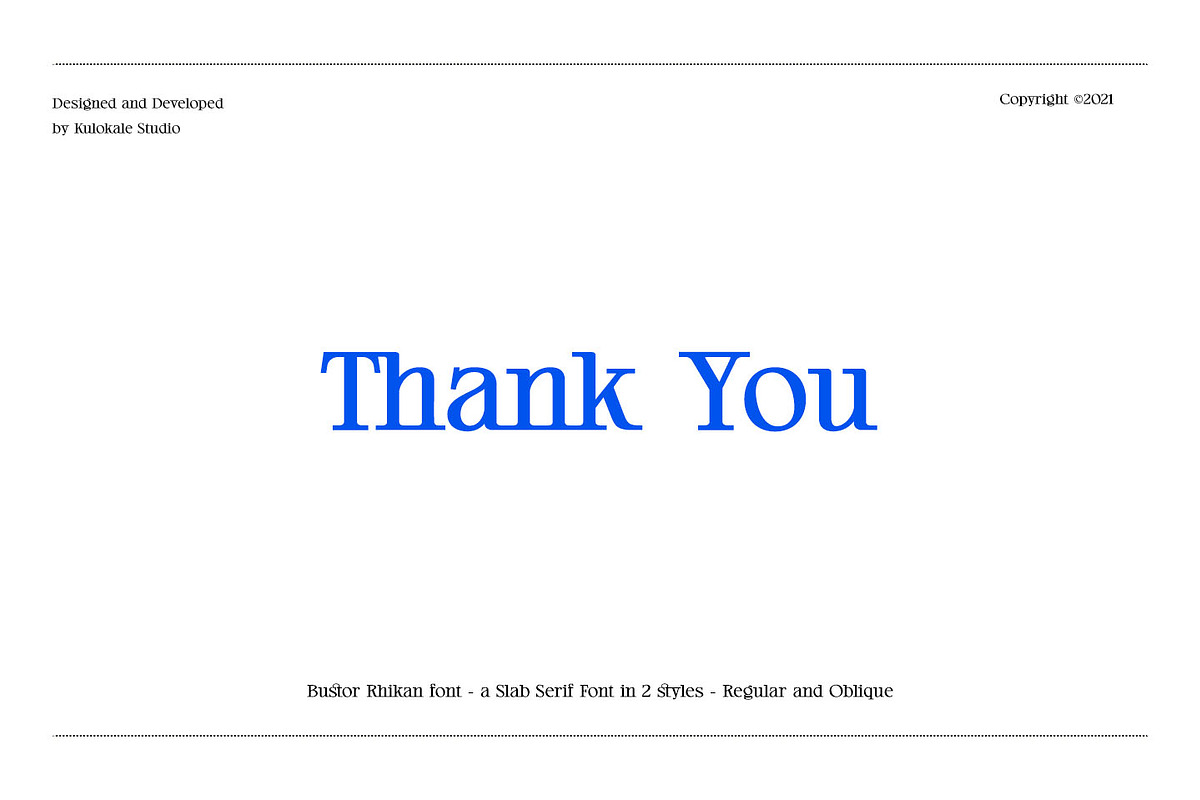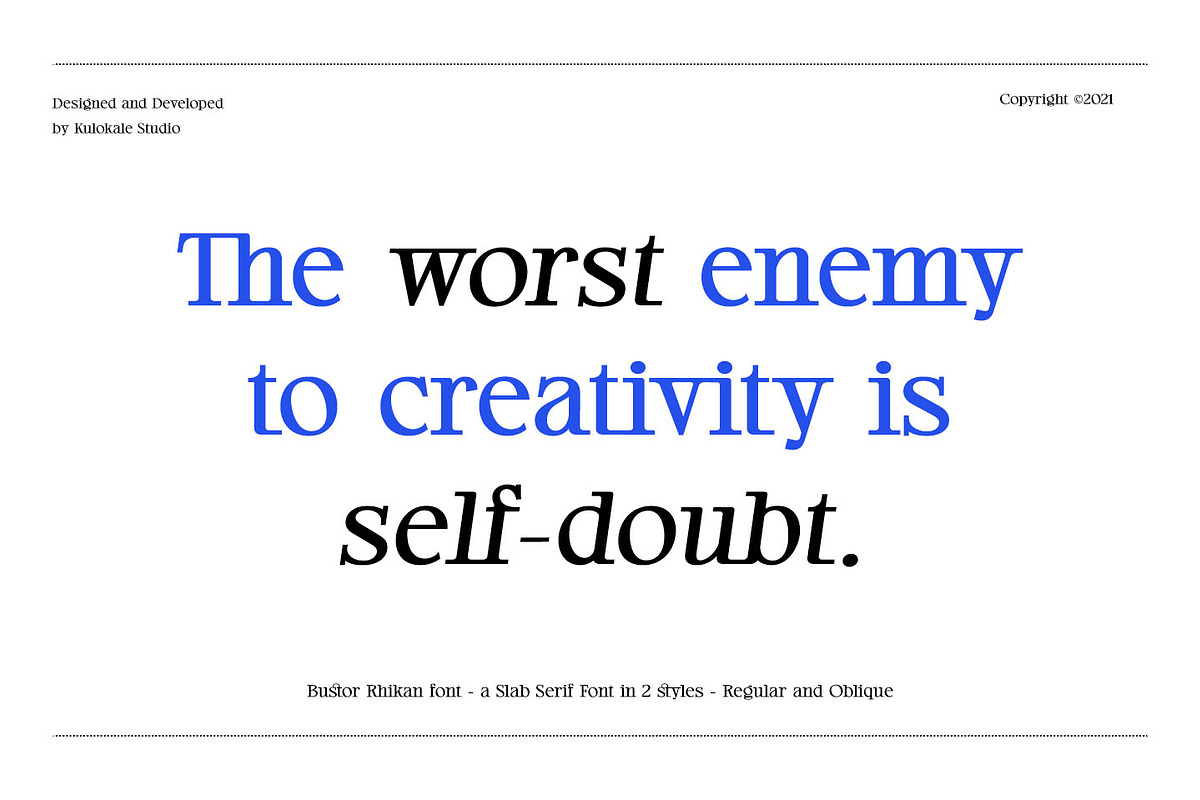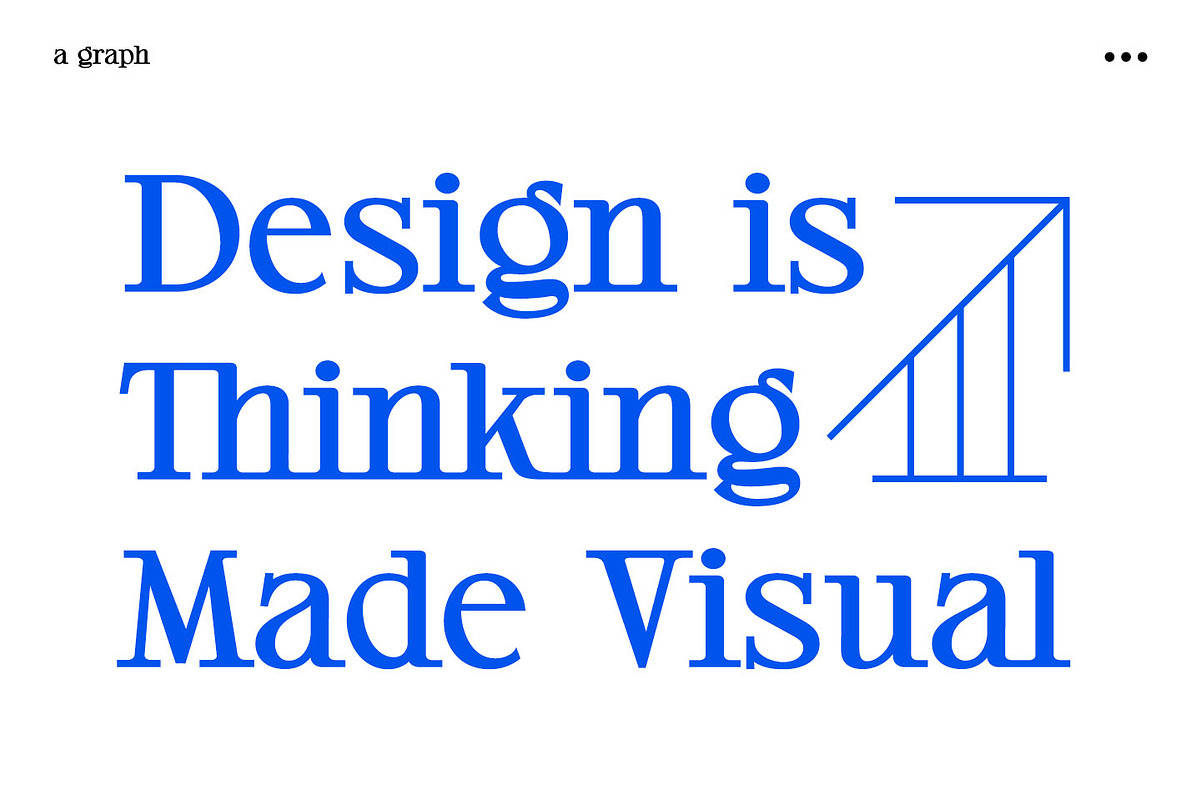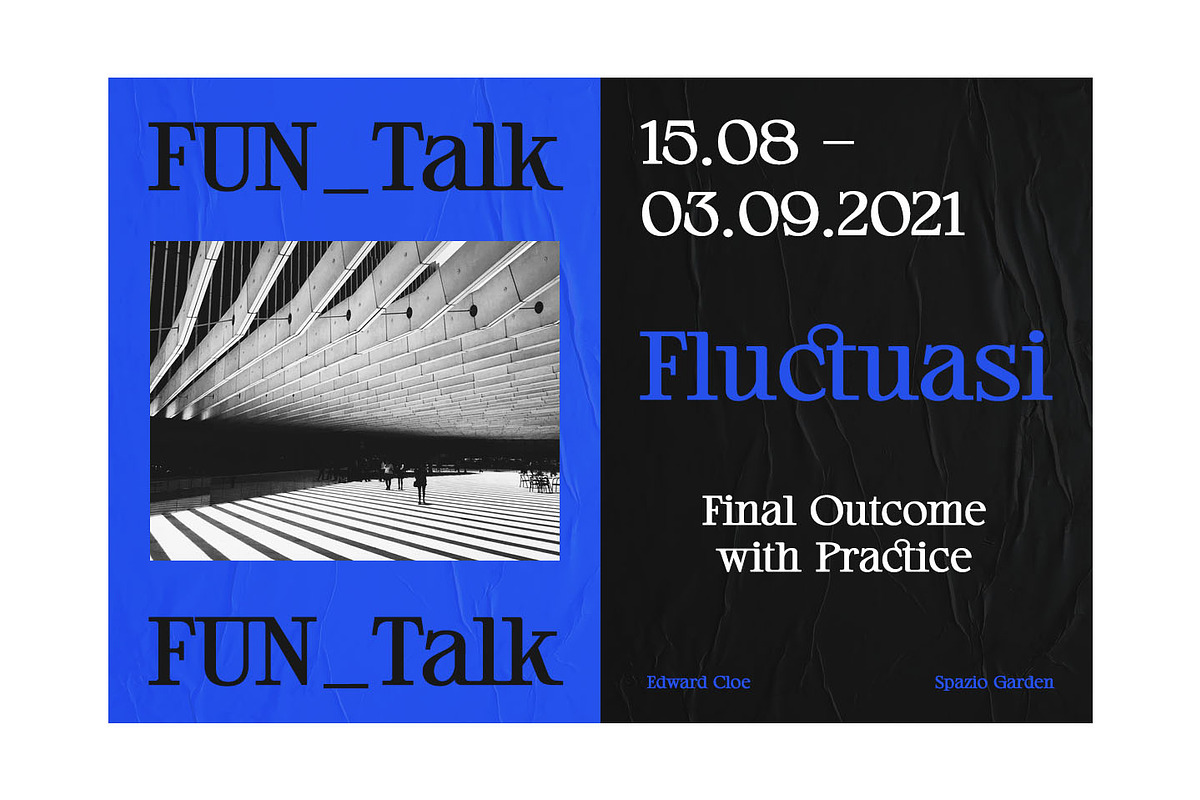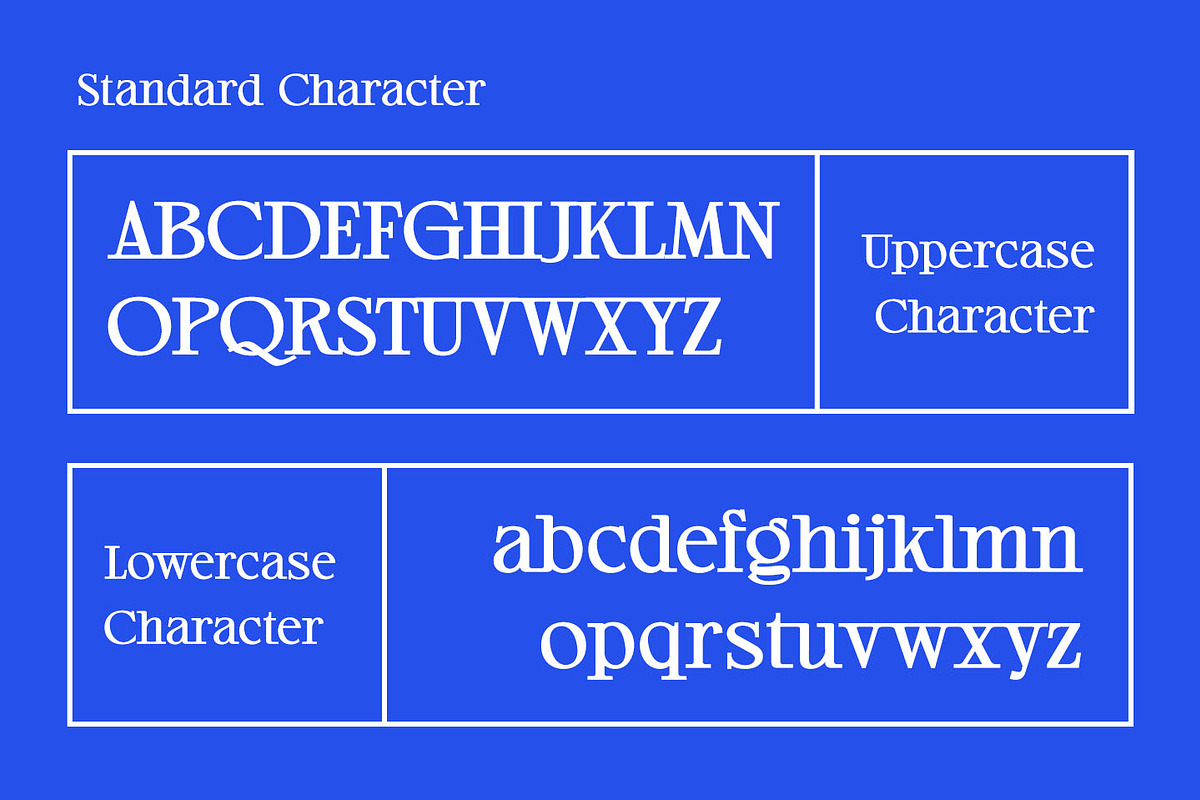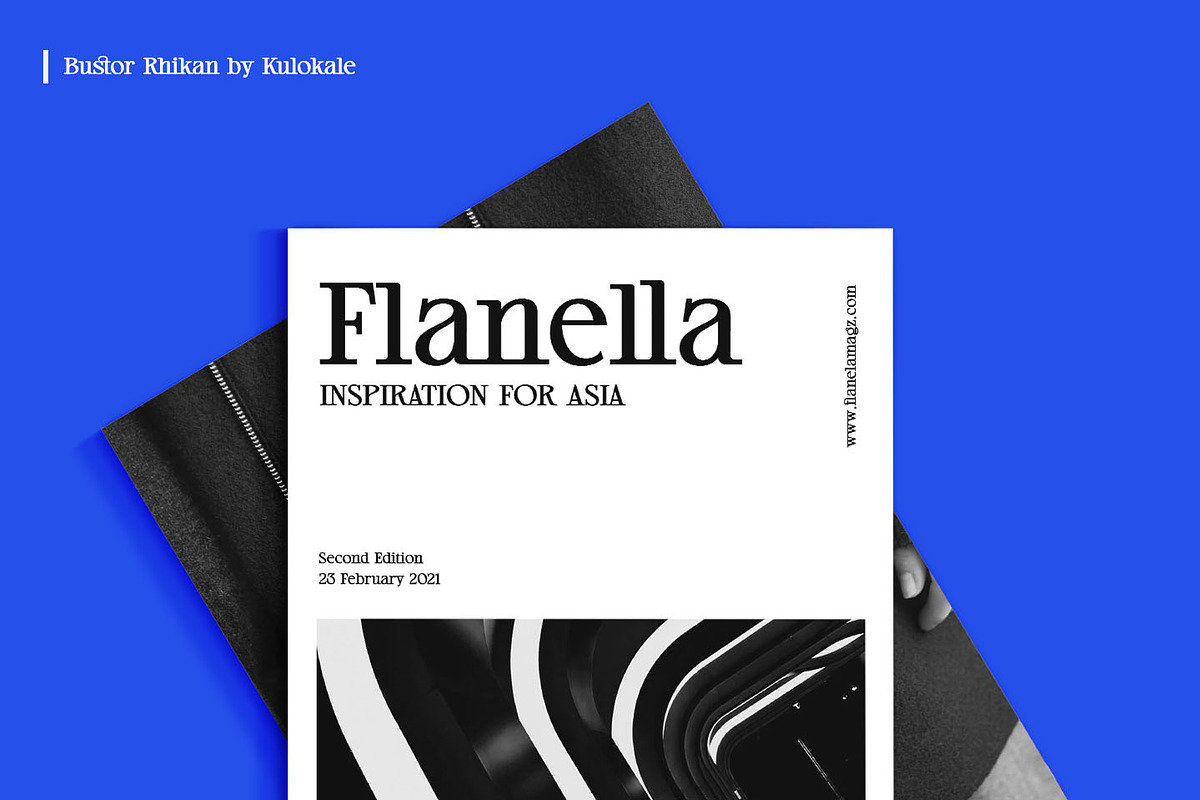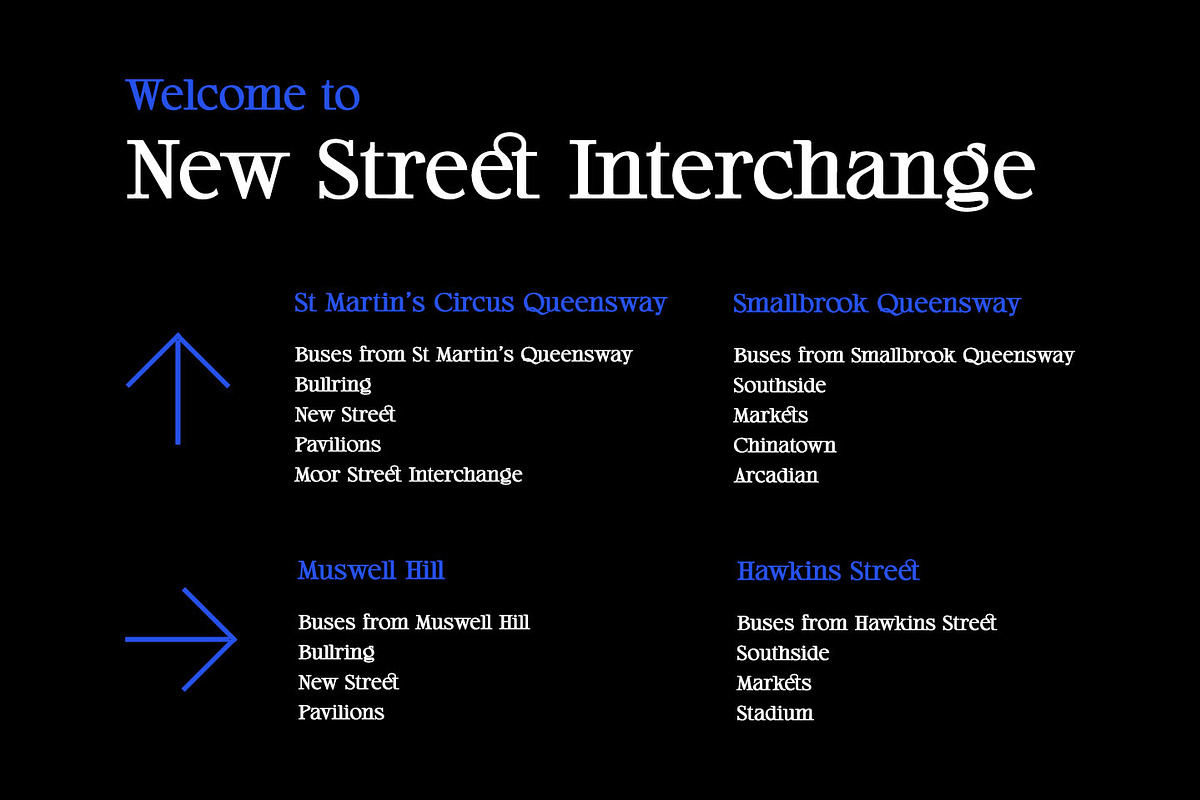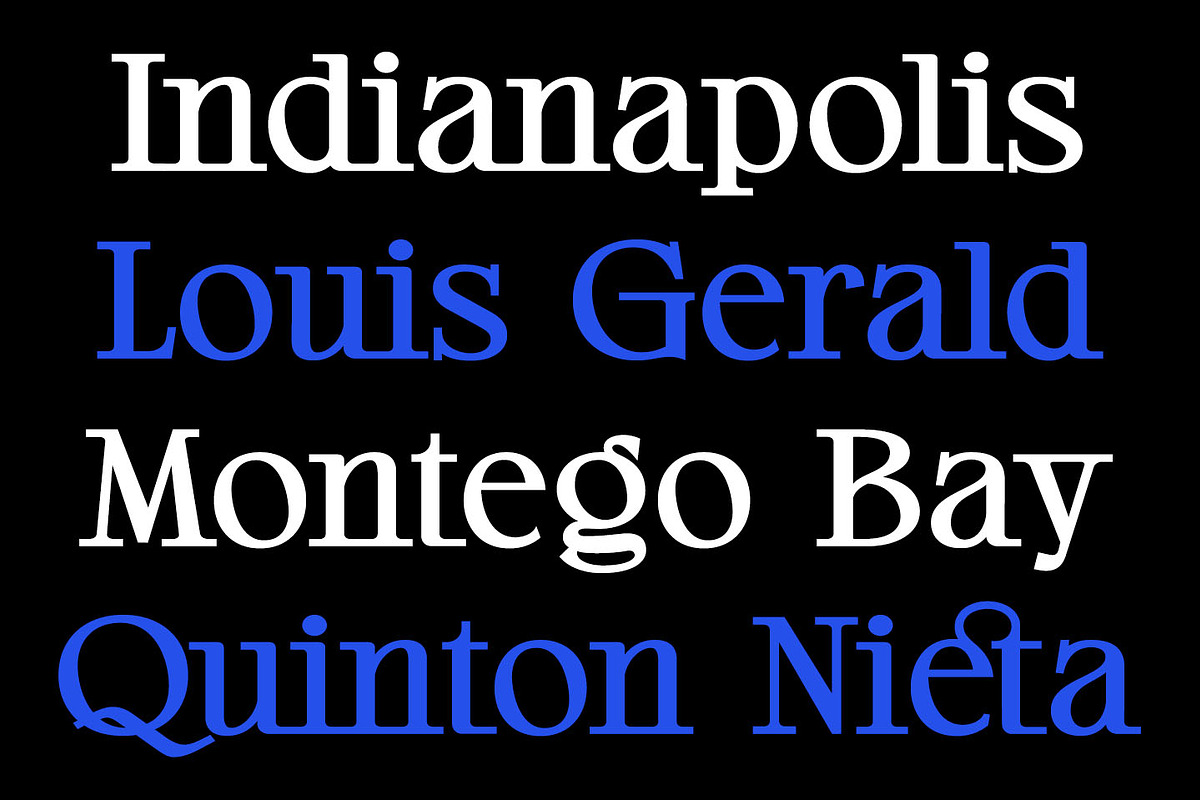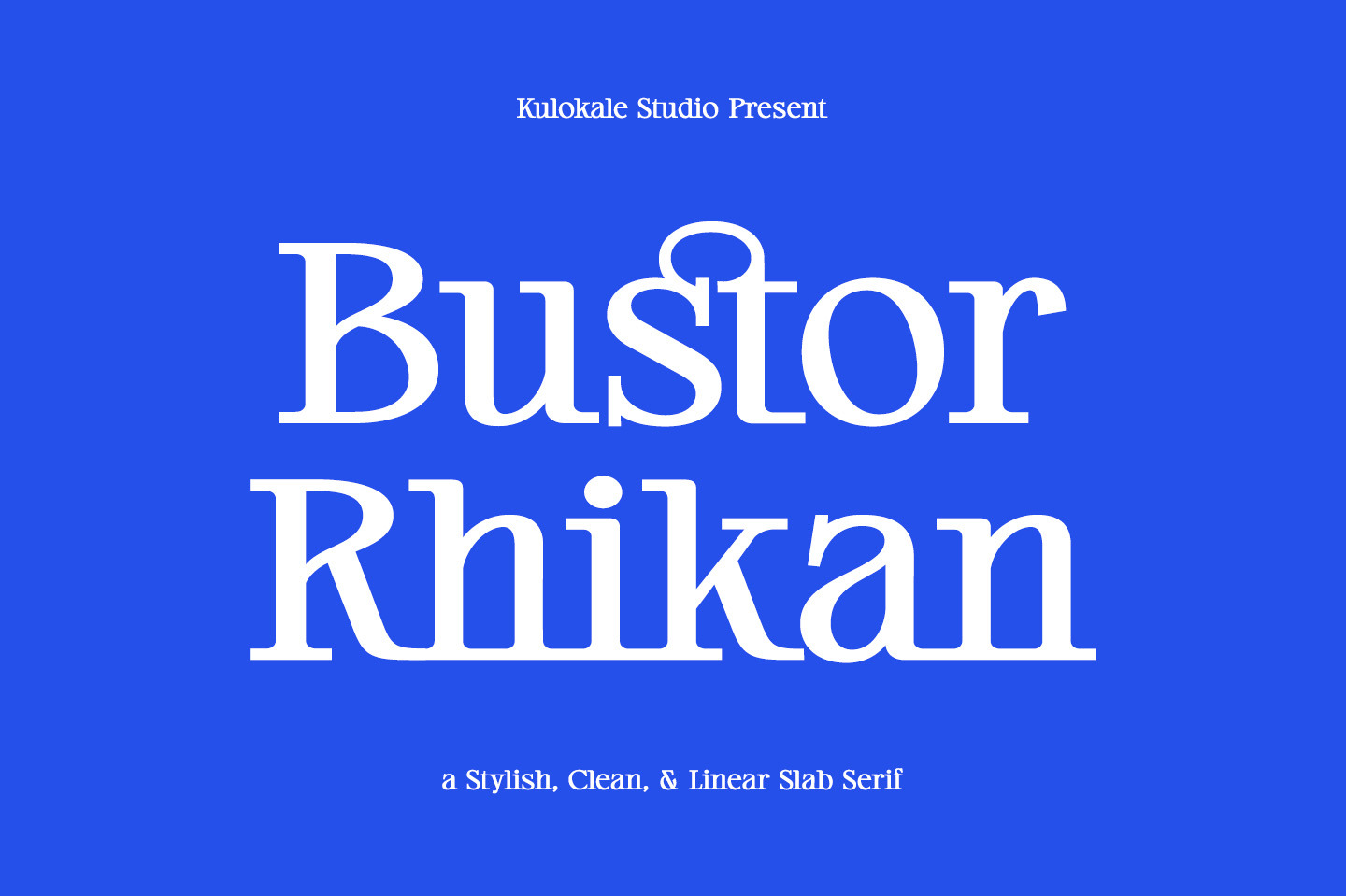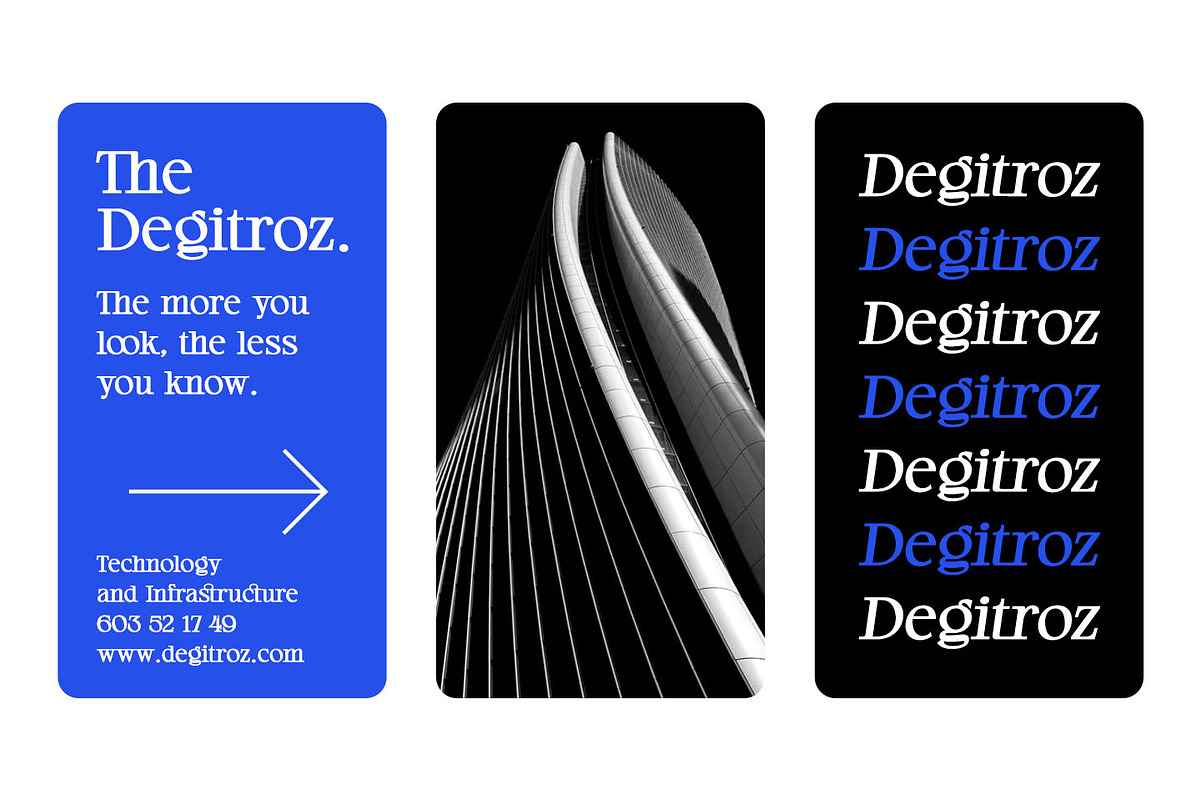
Bustor Rhikan - Slab Serif Font
Bustor Rhikan is a stylish, clean, and linear slab serif font, with style that is very different from the others. This font comes in two styles, Regular and Oblique Version.
Bustor Rhikan is well-suited for posters, social media, headlines, magazine titles, clothing, large print formats - and wherever you want to be seen. Inspired by the style of design that is currently popular, and this is the answer to all the needs of every idea that you will pour in this modern era.